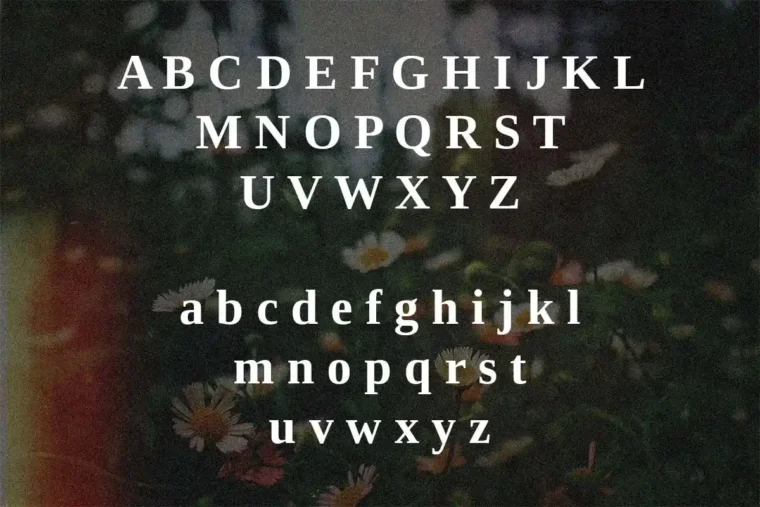
Elevate your typography with the Tinos Serif Font—a luxury serif font designed to combine elegance with modern readability. Whether you’re designing for high-end brands, editorial layouts, or multilingual digital content, this font offers a clean, timeless feel that works across a wide range of projects.
✦ Key Features:
✅ Modern Serif Typeface – Ideal for luxury and contemporary projects
✅ Full Language Support – Supports 1,025+ languages, including Latin, Greek, Cyrillic, Hebrew, and Coptic
✅ Extensive Character Set – Includes uppercase, lowercase, numerals, punctuation, currency, math, and special symbols
✅ Clean & Legible – Designed for both print and digital readability
✦ Ideal Uses:
Elegant logo designs for luxury brands
Editorial layouts in magazines and books
Fashion and beauty brand packaging
Website headlines and hero text
Brochures, flyers, and business cards
Multilingual content and global branding
Invitations, certificates, and menus
With its professional yet artistic tone, Tinos delivers the kind of versatility that designers love. The font includes full sets of Greek, Cyrillic, Latin, Hebrew, and Coptic characters, making it one of the most accessible multilingual serif fonts available. From corporate communications to creative portfolios, it brings sophistication to every project.
Because of its clean readability, Tinos works beautifully in both large and small sizes. Whether you’re creating elegant wedding invitations or a minimal corporate brand, it adapts seamlessly to your vision.